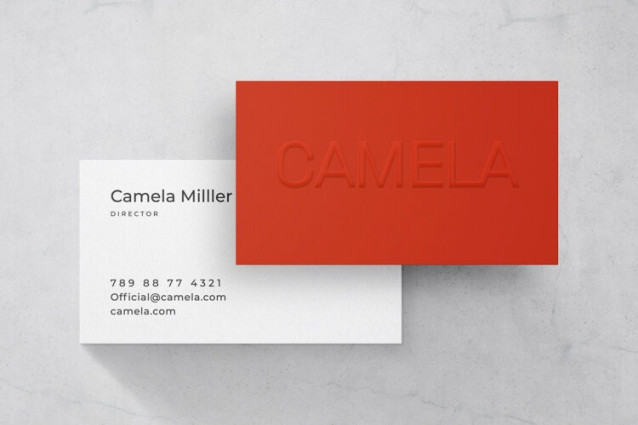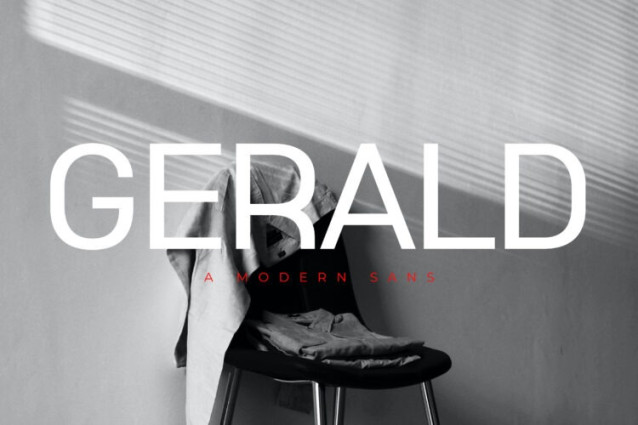
Gerald Font
Gerald Font is a modern and simple font with more unique ligatures, best used as a display for headings, logos, branding, magazines, product packaging and invitations.